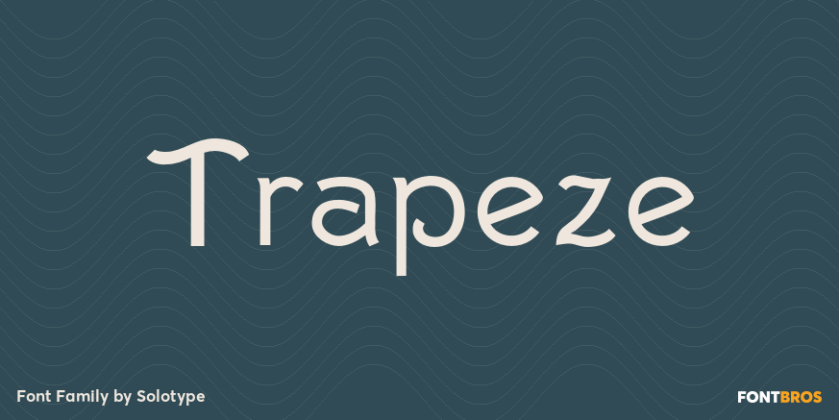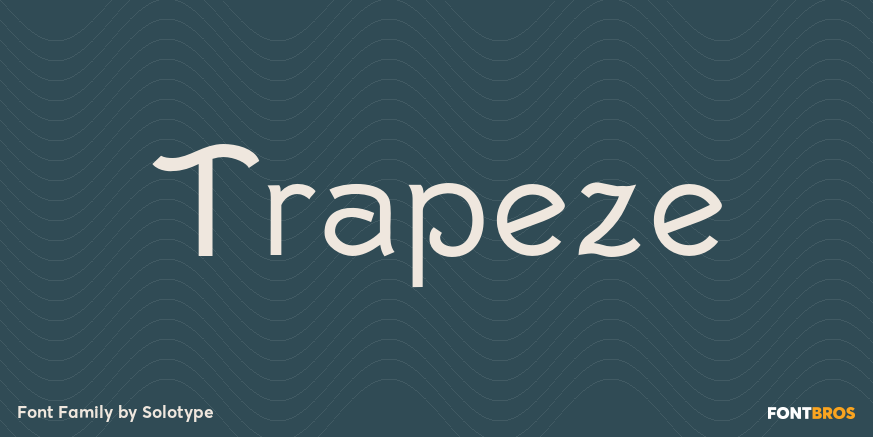
HomeFont BrosHistoricalTrapeze Historical Trapeze FacebookXPinterestWhatsApp 1 of 1 About Trapeze We took a distressed-looking Victorian type called Cabinet and redesigned it with clean lines to make it more suitable for today\’s decorative work. Quite readable in all sizes.  DOWNLOAD ON FONT BROSThis font is sold and delivered by Font Bros. Font Canyon may earn a commission if you buy through this link. People also explored Baby Shower Doodle Font Karlissta Font Fowla Font Resensi Font Love One Font School Font Rasyhanda Font Truelike Font Bright Monday Font 253 0 TagsTrapezeTrapeze Font Previous articleRomantic ScriptNext articleBellabio LEAVE A REPLY Cancel reply Comment: Please enter your comment! Name:* Please enter your name here Email:* You have entered an incorrect email address! Please enter your email address here Website: Save my name, email, and website in this browser for the next time I comment. Personal Use Free Denisha Personal Use Free Read more about this font Monogram Calligraphy Personal Use Free Read more about this font Houstonville Personal Use Free Read more about this font Fake Receipt Personal Use Free Read more about this font BLOG How to Cut Any Font on Cricut: Convert a Font to SVG (Free) Turn any font into a clean SVG so it cuts crisp on Cricut - a quick 3-step workflow using a free font-to-SVG tool. Modern Sans-Serif Fonts That Brands Love in 2025 Top 7 Google Fonts Alternatives for Faster and Privacy-Friendly Web Design (2025) Using Fonts in Digital Marketing: Tips to Strengthen Your Brand Identity